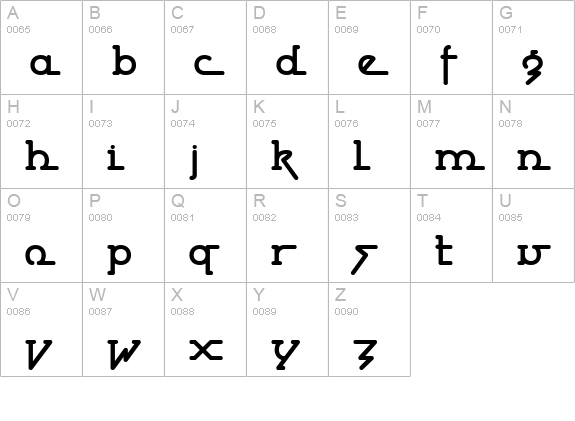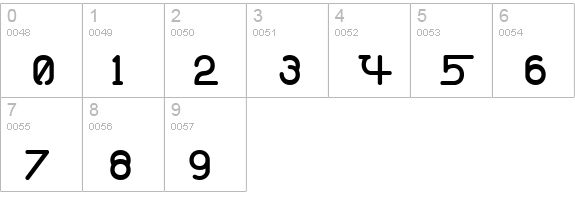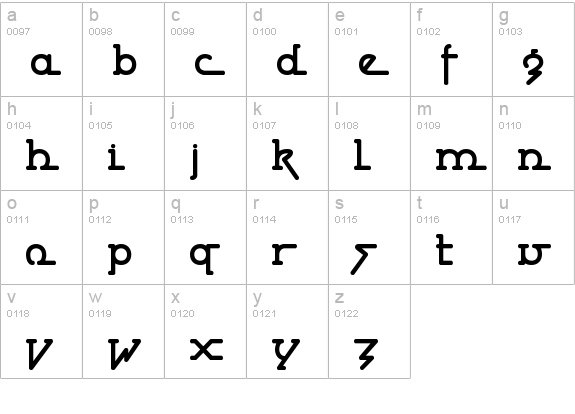
Powderworks (BRK) Font Details
Powderworks (BRK) font is a dynamic and versatile typeface that exudes a sense of energy and creativity. Its bold and rugged design makes it perfect for projects that require a strong and impactful visual presence. With its unique combination of sharp edges and flowing lines, Powderworks (BRK) font adds a touch of modernity and sophistication to any design. What sets Powderworks (BRK) font apart is that it is available for free download at FontsMarket.com. This means that you can easily access this stunning font and use it in your projects without any cost. Whether you're working on branding, advertising, or any other creative endeavor, Powderworks (BRK) font is sure to make a lasting impression. Download it now and elevate your designs with this exceptional typeface.